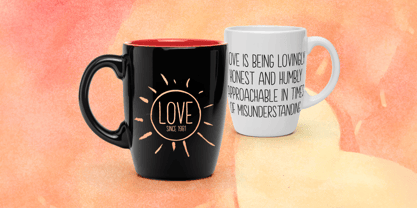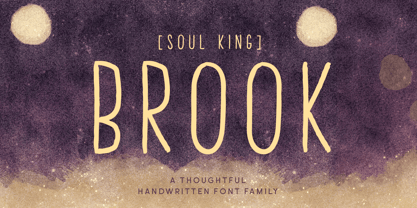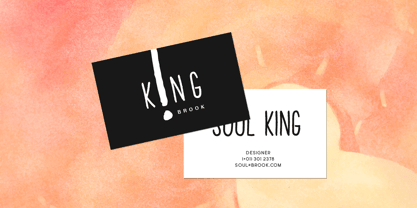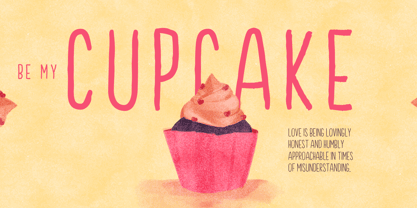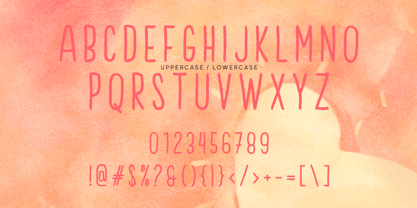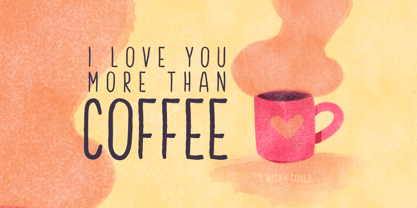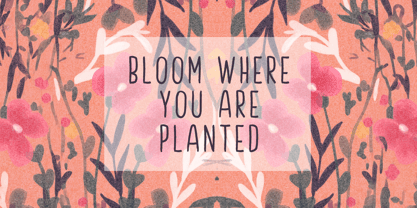
Brook
The Brook Font Family was designed by Wahyu Rahmawan and published by Factory738. Brook contains 4 styles and family package options. More about this family
Brook: A Thoughtful Handwritten Font Family
Brook is a beautiful, handcrafted font family designed to bring a sincere, human touch to professional creative projects. At FactoryType, we believe that even the simplest message deserves a bit of heart, which is why we meticulously crafted every stroke of Brook to capture the honest imperfection and charm of real handwriting while maintaining exceptional clarity.
Unlike standard single-weight scripts, Brook offers a versatile 4-weight library (Thin, Light, Regular, and Bold). This allows you to maintain a consistent hand-drawn aesthetic while having the typographic hierarchy needed for more complex layouts. It is a dependable tool for designers who want their work to feel approachable, authentic, and intimate.
Whether you are developing personalized branding, editorial storytelling, or modern packaging systems, Brook provides a layer of warmth and "magic" that balances artisanal charm with professional performance.
Main Features:
• 4 Total Weights: A balanced spectrum from a delicate, airy Thin to a confident, impactful Bold.
• Authentic Rhythm: Meticulously engineered to preserve a natural, fluid hand-drawn rhythm with clean digital execution.
• Versatile Character Set: Includes standard Latin A-Z (uppercase & lowercase), numerals, and essential punctuation.
• Ideal For: Personal branding, high-end stationery, social media quotes, greeting cards, and boutique editorial design.
• Language Support: Comprehensive multilingual support for global accessibility.